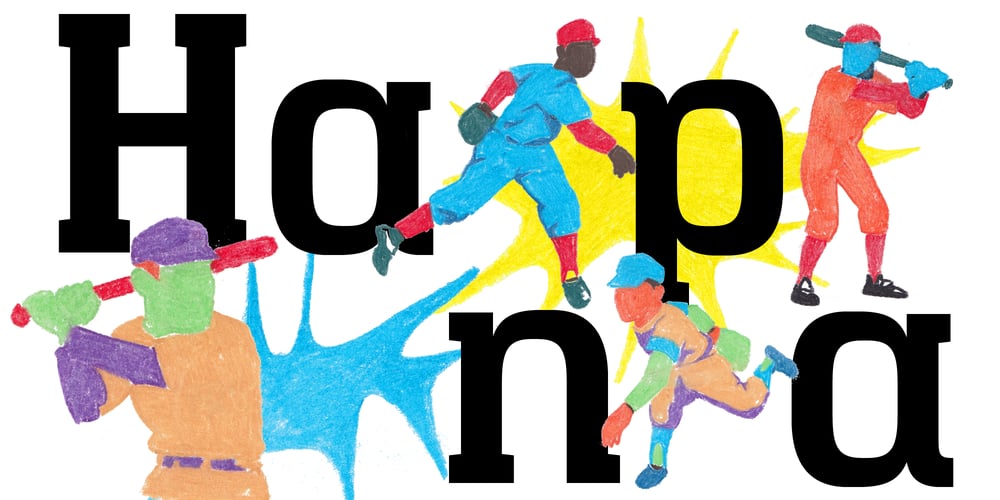
Hapna Font Family was designed by Mariya Lish and published by Inhouse Type. Hapna contains 6 styles and family package options. Hapna is a geometric slab serif designed as an alternative to other slab style fonts available on the market. Hapna was inspired by the baseball culture and the graphic language of the early 1950s. Details include 6 weights, 406 characters and open type features.